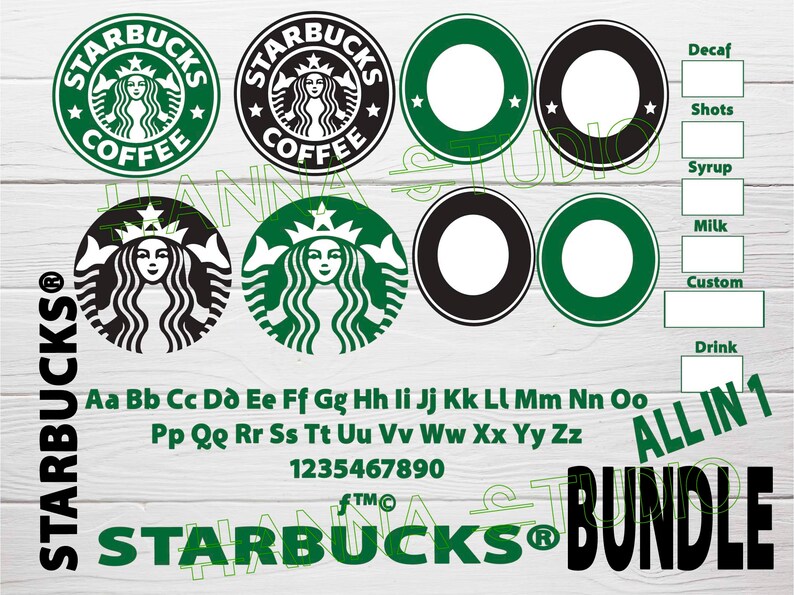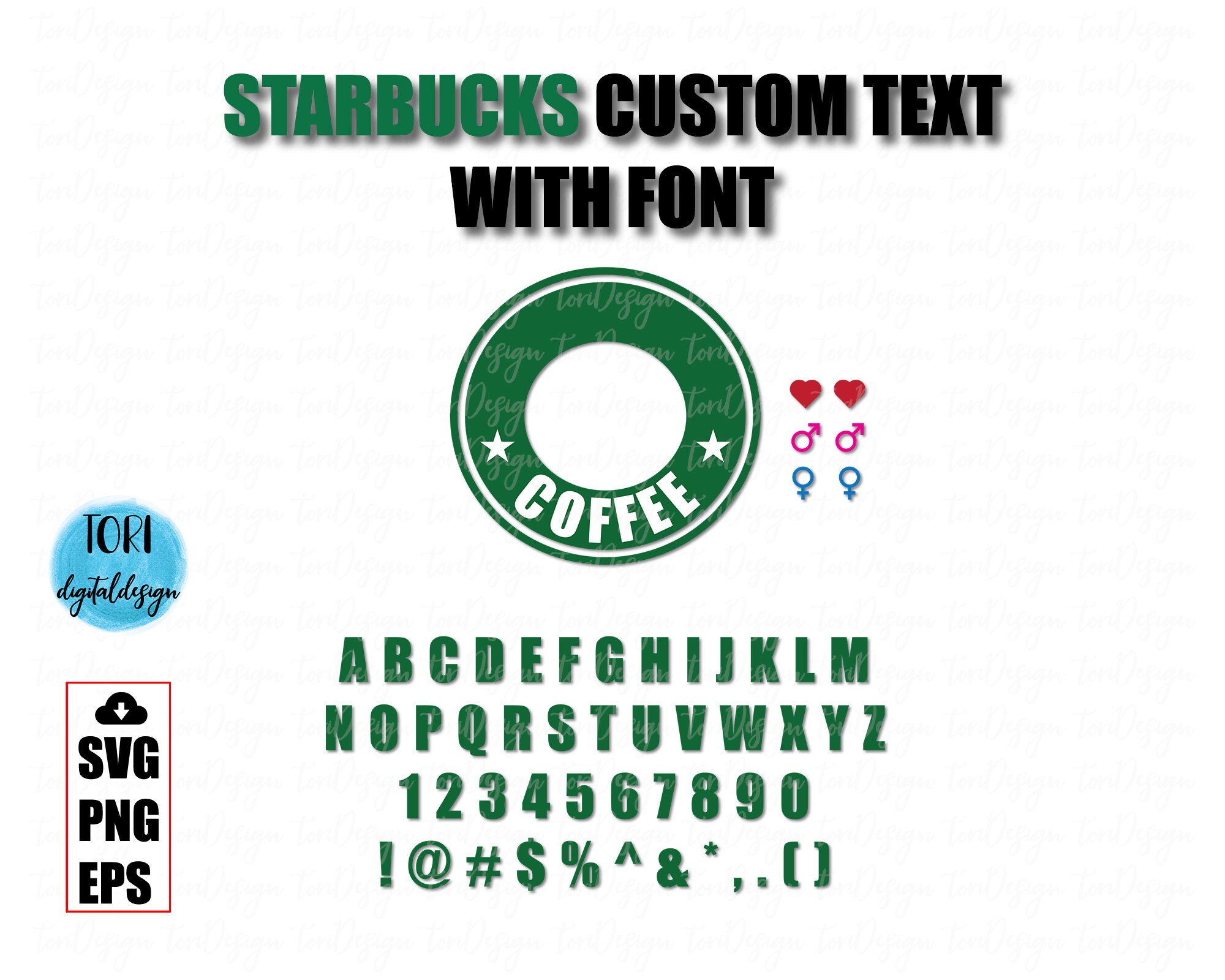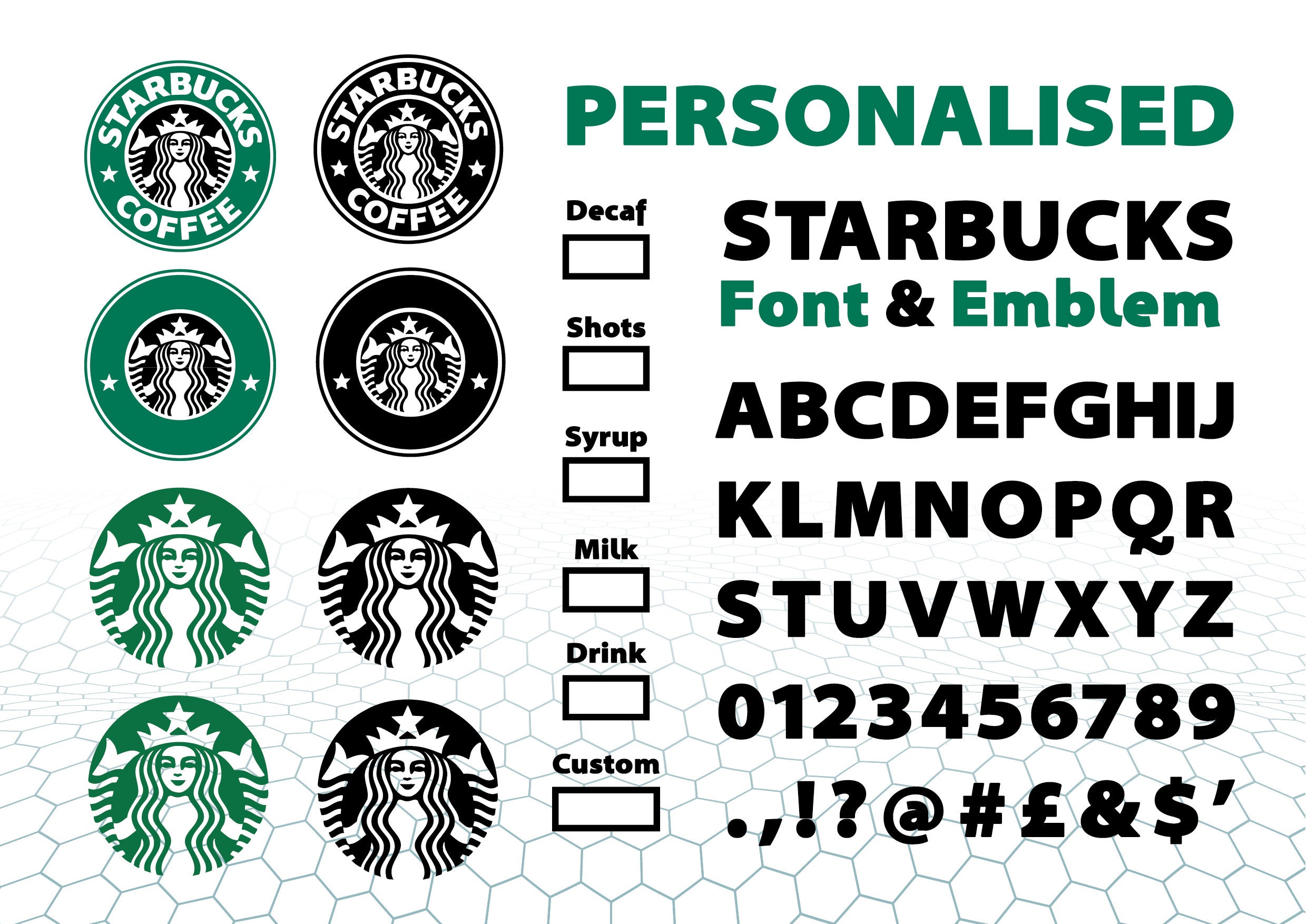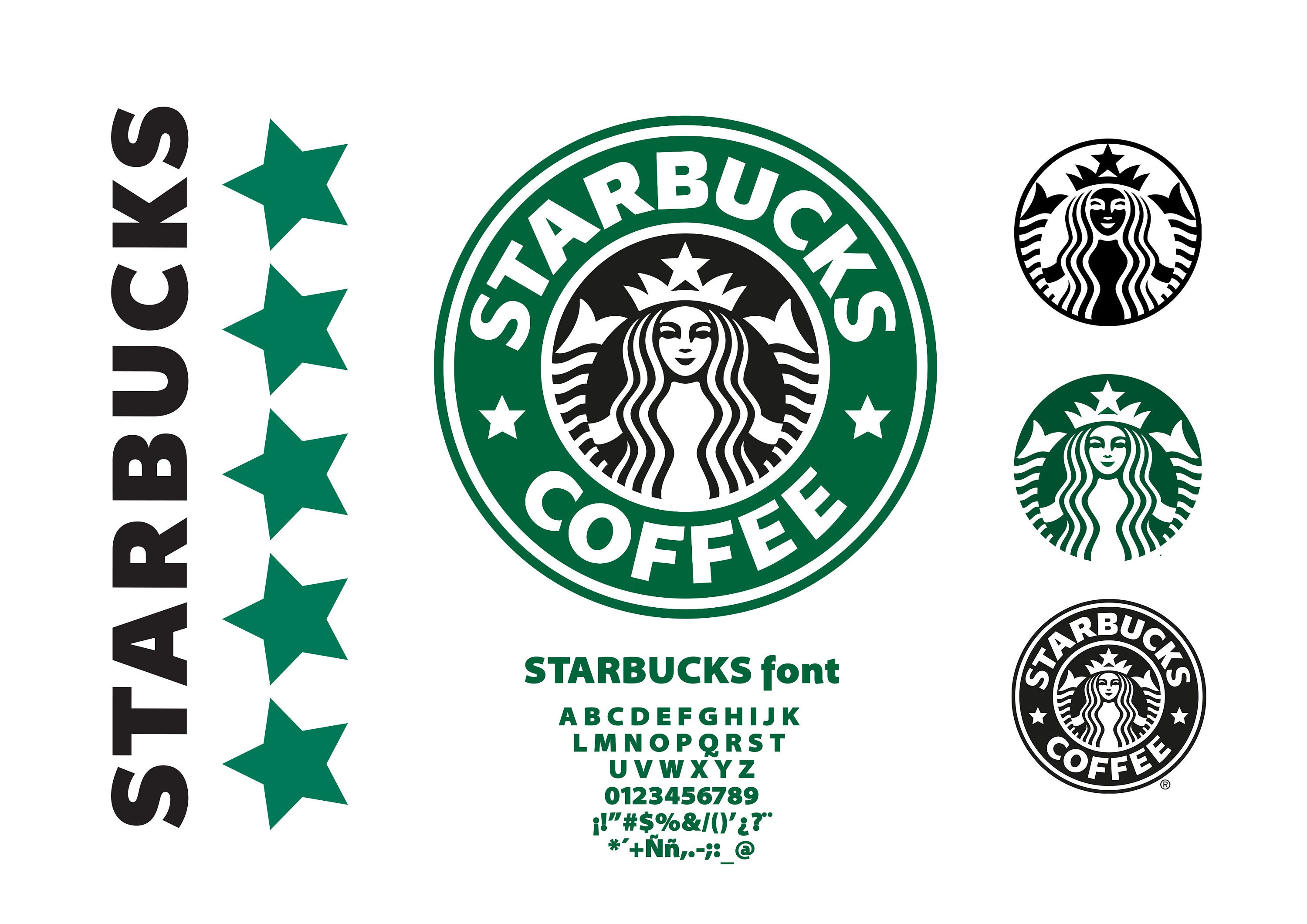
What Font To Use For Starbucks Cup . This download includes 6 variations. Collection of fonts for starbucks cup fonts. For this example, i’m going to show you how to put text in the top and bottom of the circle around the starbucks logo. Here are some ideas for using starbucks font in personal or craft projects: Place the text over the border where you want it to be aligned. Learn how to make the signature decals for the reusable starbucks cups! You may need to decrease the size to make it fit. You need cricut design space for this tutorial. I'm using the font din 1451. Santana black by manfred klein is a font based on the starbucks logo. It is a free font. Sodo sans is our most versatile typeface, frequently used for body copy. Create your own custom coffee cups or mugs with the iconic. Bold espresso cascades through light, fluffy layers of foam,. The font i found closest to the starbucks font that i used for.
I'm using the font din 1451. Create your own custom coffee cups or mugs with the iconic. This download includes 6 variations. You may need to decrease the size to make it fit. Collection of fonts for starbucks cup fonts. Sodo sans is our most versatile typeface, frequently used for body copy. Use the curve tool to perfectly. For this example, i’m going to show you how to put text in the top and bottom of the circle around the starbucks logo. The font i found closest to the starbucks font that i used for. Bold espresso cascades through light, fluffy layers of foam,.
What Font To Use For Starbucks Cup You need cricut design space for this tutorial. Santana black by manfred klein is a font based on the starbucks logo. You may need to decrease the size to make it fit. You need cricut design space for this tutorial. For this example, i’m going to show you how to put text in the top and bottom of the circle around the starbucks logo. Collection of fonts for starbucks cup fonts. This download includes 6 variations. Create your own custom coffee cups or mugs with the iconic. Use the curve tool to perfectly. The font i found closest to the starbucks font that i used for. Place the text over the border where you want it to be aligned. Here are some ideas for using starbucks font in personal or craft projects: It is a free font. I'm using the font din 1451. Bold espresso cascades through light, fluffy layers of foam,. Learn how to make the signature decals for the reusable starbucks cups!
Starbucks Svg Bundle Starbuck Font Starbuck Cricut Png Etsy UK What Font To Use For Starbucks Cup This download includes 6 variations. Place the text over the border where you want it to be aligned. Santana black by manfred klein is a font based on the starbucks logo. Create your own custom coffee cups or mugs with the iconic. Sodo sans is our most versatile typeface, frequently used for body copy. Bold espresso cascades through light, fluffy. What Font To Use For Starbucks Cup.
Starbucks Logo Wrap and Font Bundle SVG Starbucks Coffee Font Etsy What Font To Use For Starbucks Cup Here are some ideas for using starbucks font in personal or craft projects: Bold espresso cascades through light, fluffy layers of foam,. For this example, i’m going to show you how to put text in the top and bottom of the circle around the starbucks logo. Sodo sans is our most versatile typeface, frequently used for body copy. Learn how. What Font To Use For Starbucks Cup.
Starbucks Coffee svg Option Coffee vector Emblem clipart font alphabet What Font To Use For Starbucks Cup Create your own custom coffee cups or mugs with the iconic. Sodo sans is our most versatile typeface, frequently used for body copy. It is a free font. I'm using the font din 1451. You may need to decrease the size to make it fit. This download includes 6 variations. Place the text over the border where you want it. What Font To Use For Starbucks Cup.
Starbucks Font Svg Starbucks Font for Cricut & Etsy Canada What Font To Use For Starbucks Cup Place the text over the border where you want it to be aligned. Bold espresso cascades through light, fluffy layers of foam,. Sodo sans is our most versatile typeface, frequently used for body copy. Santana black by manfred klein is a font based on the starbucks logo. Create your own custom coffee cups or mugs with the iconic. Learn how. What Font To Use For Starbucks Cup.
STARBUCKS SVG Starbucks Font and cut files Ai Eps Png Svg for Etsy What Font To Use For Starbucks Cup You need cricut design space for this tutorial. Learn how to make the signature decals for the reusable starbucks cups! Bold espresso cascades through light, fluffy layers of foam,. For this example, i’m going to show you how to put text in the top and bottom of the circle around the starbucks logo. I'm using the font din 1451. You. What Font To Use For Starbucks Cup.
Starbucks font svg Starbucks font for Cricut What Font To Use For Starbucks Cup Bold espresso cascades through light, fluffy layers of foam,. You may need to decrease the size to make it fit. Here are some ideas for using starbucks font in personal or craft projects: It is a free font. The font i found closest to the starbucks font that i used for. You need cricut design space for this tutorial. Collection. What Font To Use For Starbucks Cup.
Personalised Name Customised Starbucks Cup for Cold Drinks in Font G What Font To Use For Starbucks Cup You need cricut design space for this tutorial. Sodo sans is our most versatile typeface, frequently used for body copy. Create your own custom coffee cups or mugs with the iconic. Learn how to make the signature decals for the reusable starbucks cups! It is a free font. You may need to decrease the size to make it fit. For. What Font To Use For Starbucks Cup.
Personalized Starbucks Cold Cup for the Starbucks Coffee Etsy in 2021 What Font To Use For Starbucks Cup Here are some ideas for using starbucks font in personal or craft projects: Use the curve tool to perfectly. The font i found closest to the starbucks font that i used for. Sodo sans is our most versatile typeface, frequently used for body copy. You may need to decrease the size to make it fit. I'm using the font din. What Font To Use For Starbucks Cup.
Starbucks Valentines, Starbucks Gift, Starbucks Logo, Starbucks Cups What Font To Use For Starbucks Cup This download includes 6 variations. You need cricut design space for this tutorial. Create your own custom coffee cups or mugs with the iconic. It is a free font. Place the text over the border where you want it to be aligned. Here are some ideas for using starbucks font in personal or craft projects: Bold espresso cascades through light,. What Font To Use For Starbucks Cup.